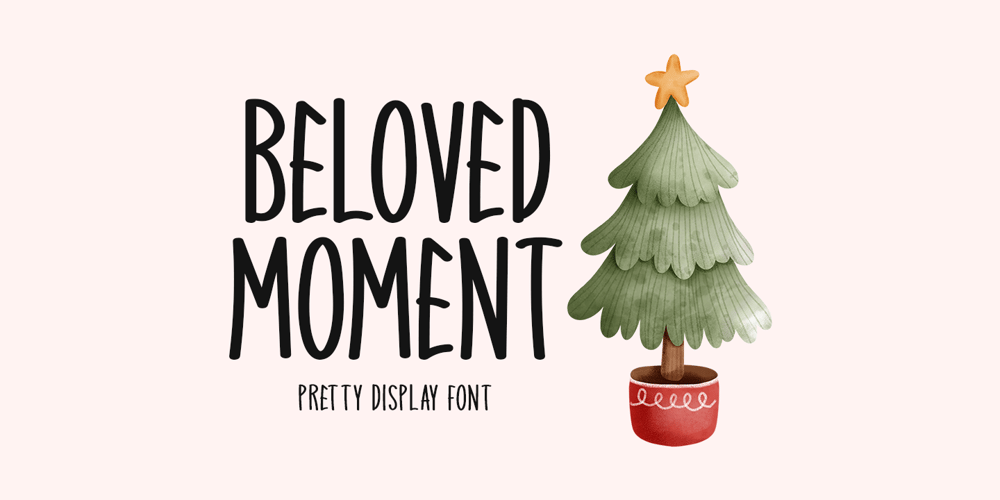
Beloved Moment
Beloved Moment font
Beloved Moment Font Family was designed by Md Shohail Bhuian and published by Seemly Fonts. Beloved Moment contains 1 styles and family package options. Beloved Moment is an exciting new display font, ideal for a variety of applications including stationery, logos, apparel, print materials, website headers, photo frames, flyers, music covers, posters, and more.